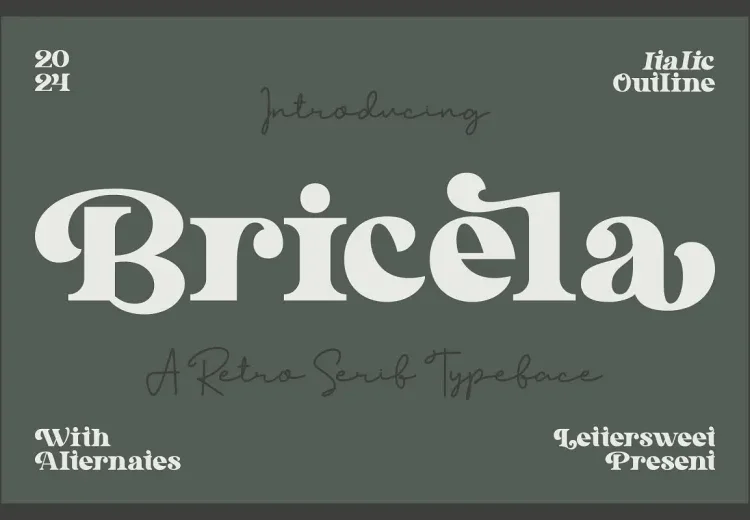
Bricela Font
Bricela Font is an eye-catching vintage serif font that brings a touch of charm and nostalgia to any design concept. Expertly crafted to capture the essence of retro elegance, this font is sure to become a favorite for those seeking to infuse their projects with a classic yet timeless appeal.
Bricela is more than just a typeface; it’s a tool that empowers your creative ideas to flourish, offering a unique blend of vintage aesthetics and modern usability. With its PUA encoding, accessing the font’s extensive range of glyphs, swashes, and characters is seamless, allowing you to fully explore its potential in your designs.
Whether you’re working on logos, branding, invitations, or any other design project that requires a touch of vintage charm, Bricela delivers with style and grace.